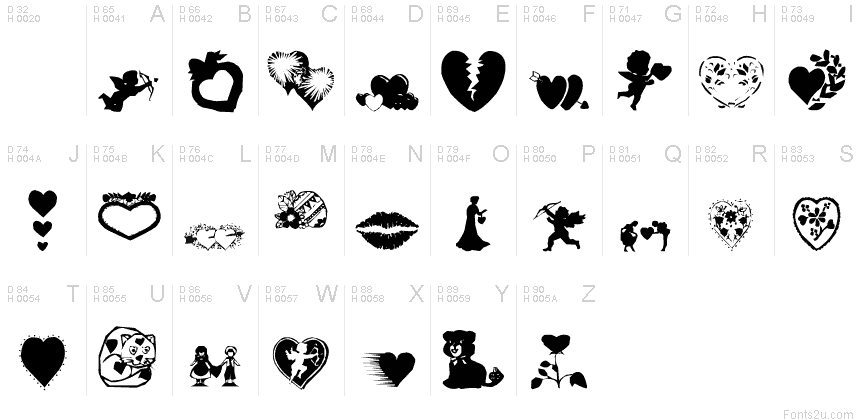
aosvalentine
AOS Valentine font by Ace of Space Graphics is a free romantic dingbat typeface that turns simple keystrokes into bold, inky silhouettes of hearts, cupids, and love-struck icons. The shapes are chunky and solid, with clean outlines that hold up when scaled huge on posters or shrunk down for tags and stickers, so you can decorate layouts fast without hunting for clip art or stock illustrations.
Using AOS Valentine, you can add charming accent graphics to greeting cards, wedding invitations, gift tags, social media posts, classroom printables, and handmade packaging. This free font works beautifully as a graphic accent beside a simple sans serif wordmark; just keep the icons larger than your text so the playful heart motifs feel intentional and balanced.
AOS Valentine